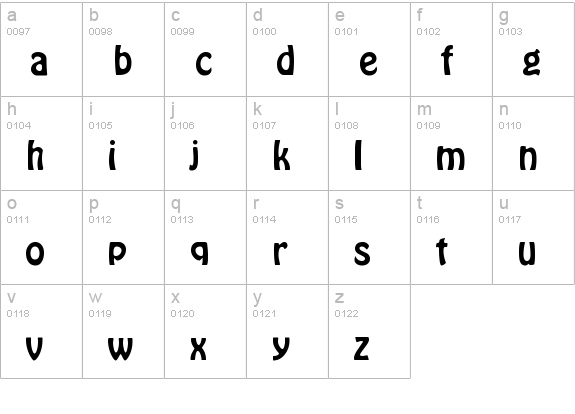
HobbyHeadline Regular is the standard, neutral variant in the HobbyHeadline typeface family \xE2\x80\x94 well suited to general body text, paragraphs, and standard typographic work.
HobbyHeadline Regular font is a modern and versatile typeface that is perfect for a wide range of design projects. Its clean lines and stylish appearance make it a popular choice for headlines, titles, and other display text. This font exudes a sense of sophistication and elegance while maintaining readability and clarity. What sets HobbyHeadline Regular font apart is that it is available for free download at FontsMarket.com. This means that you can easily access this high-quality font without breaking the bank. Whether you're working on a personal project or a professional assignment, HobbyHeadline Regular font is sure to elevate your design and make a lasting impression. Download this font today and take your typography to the next level!